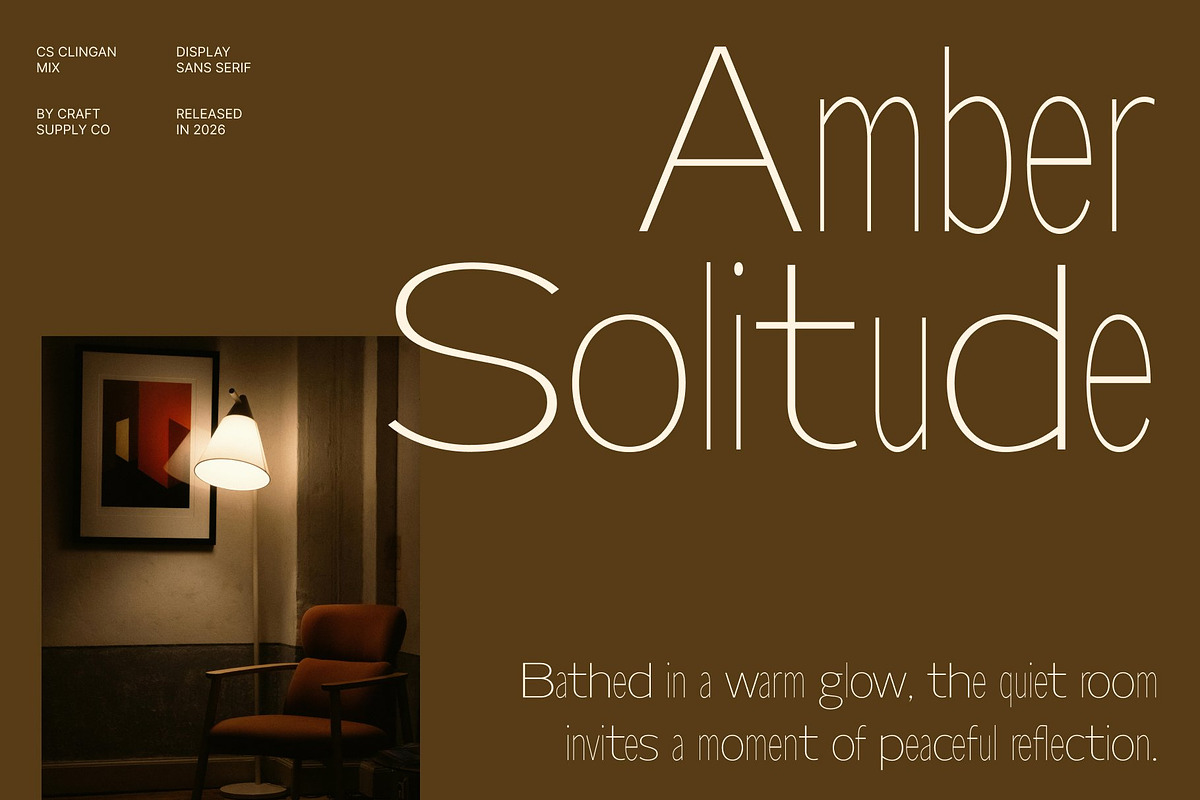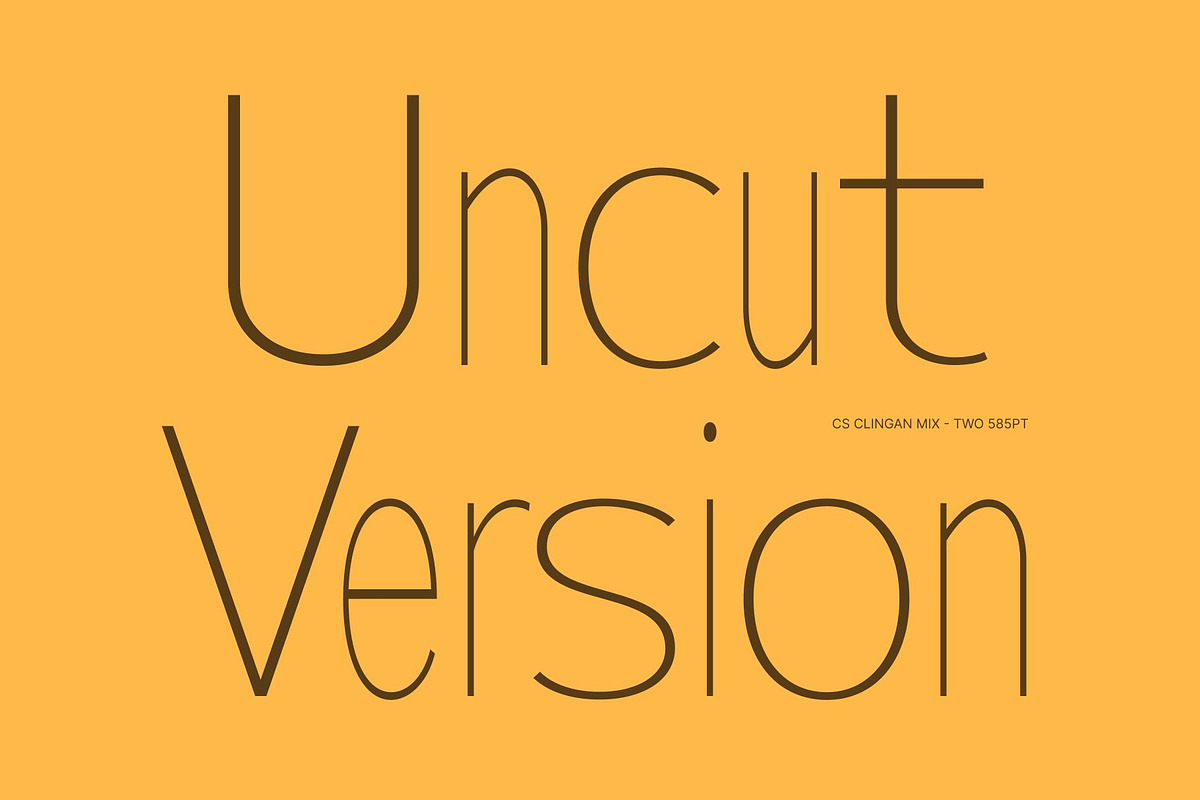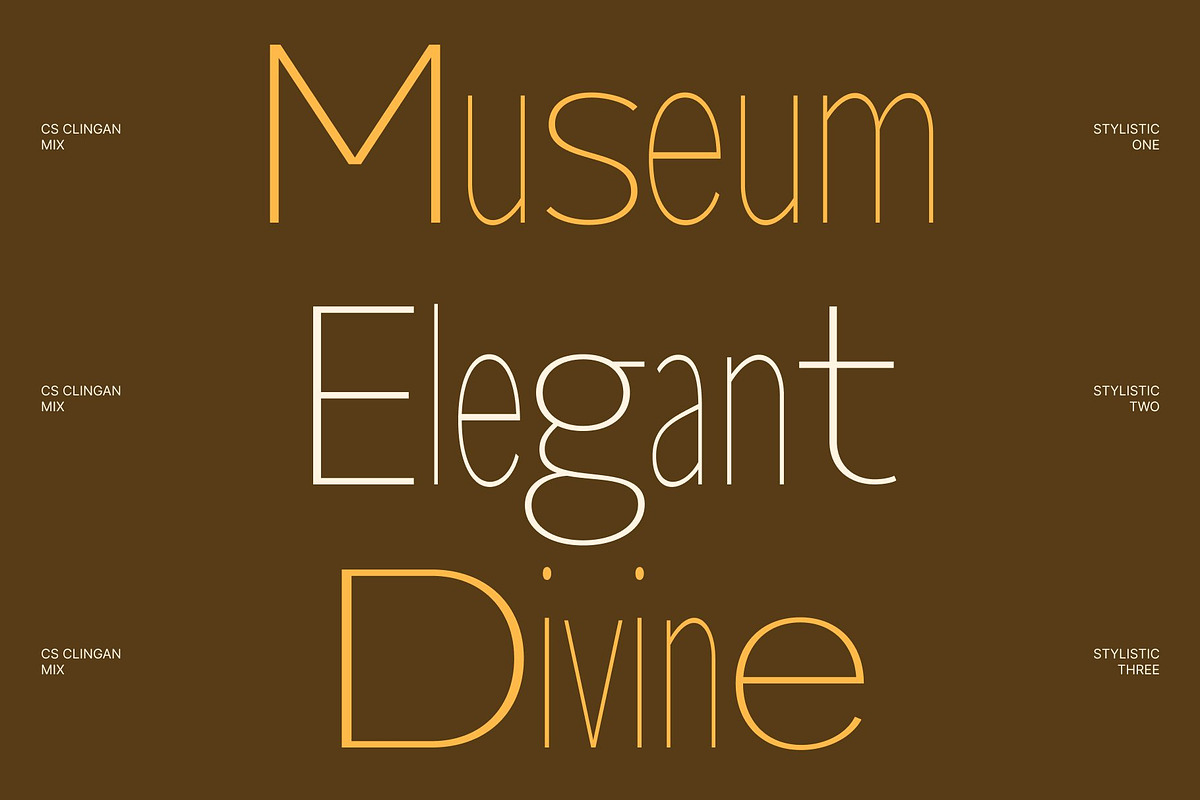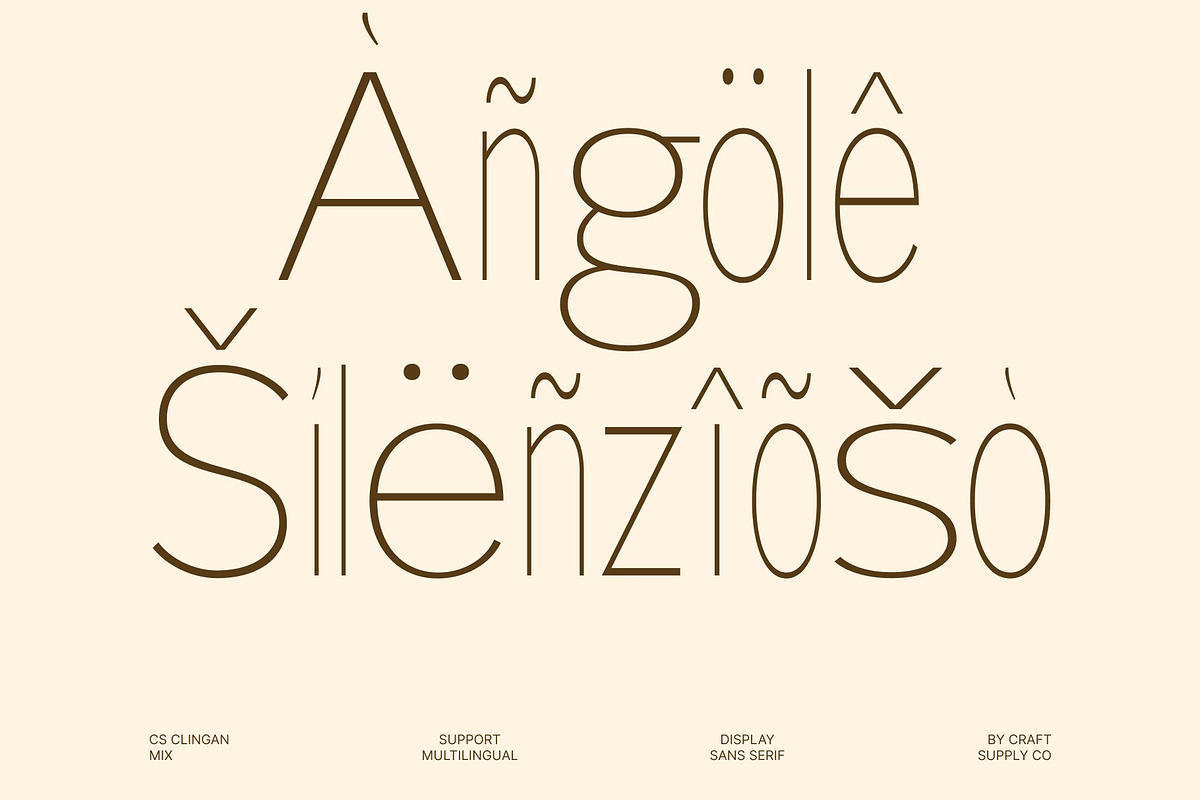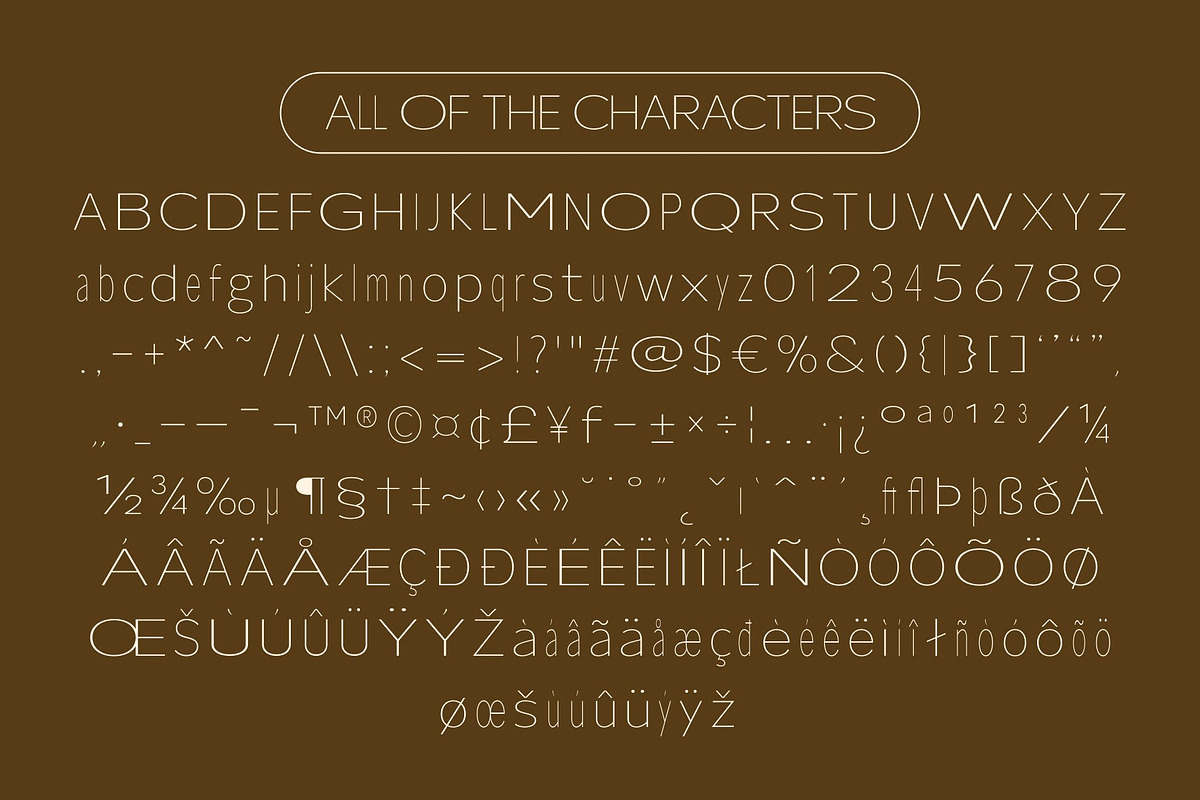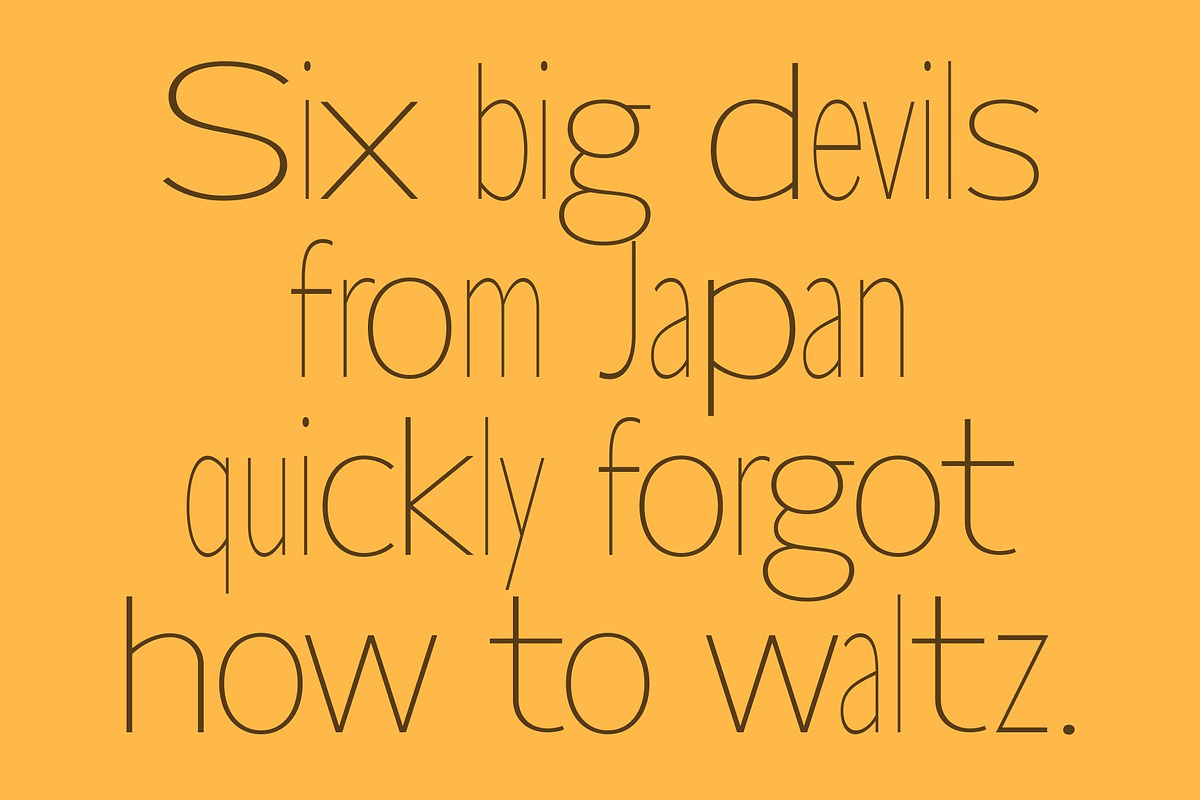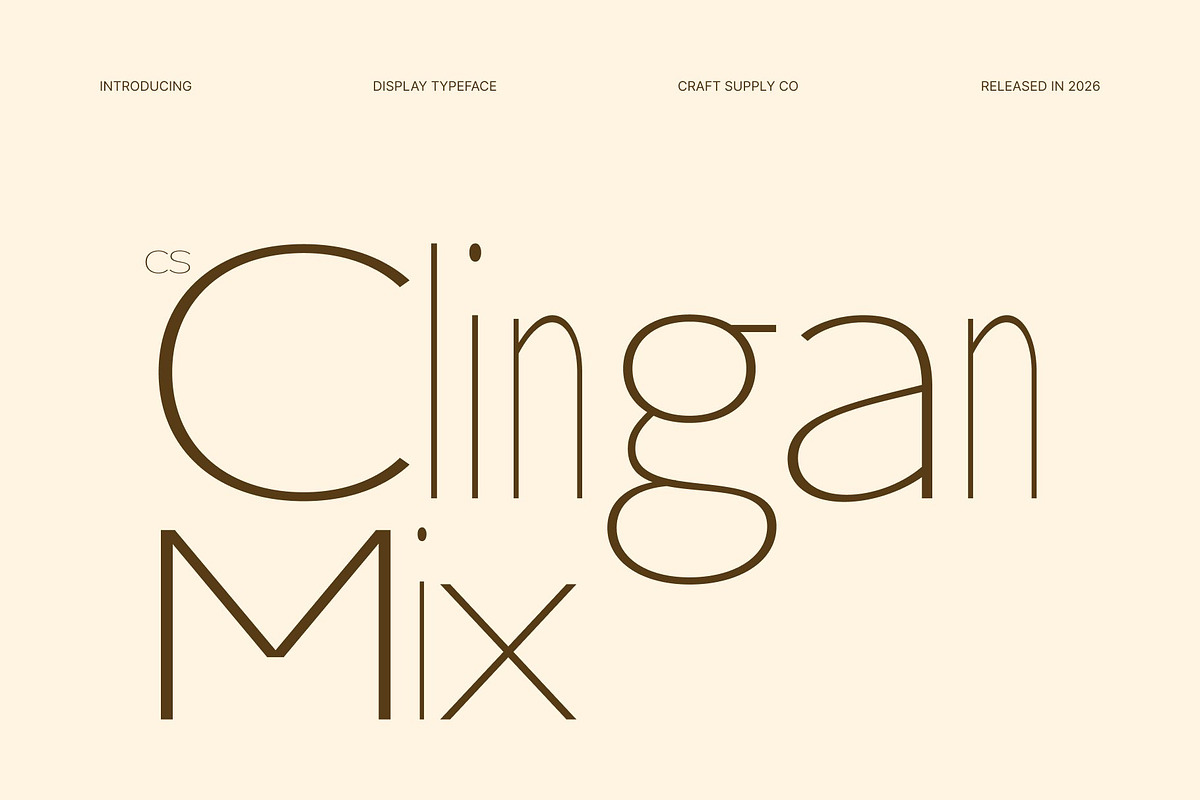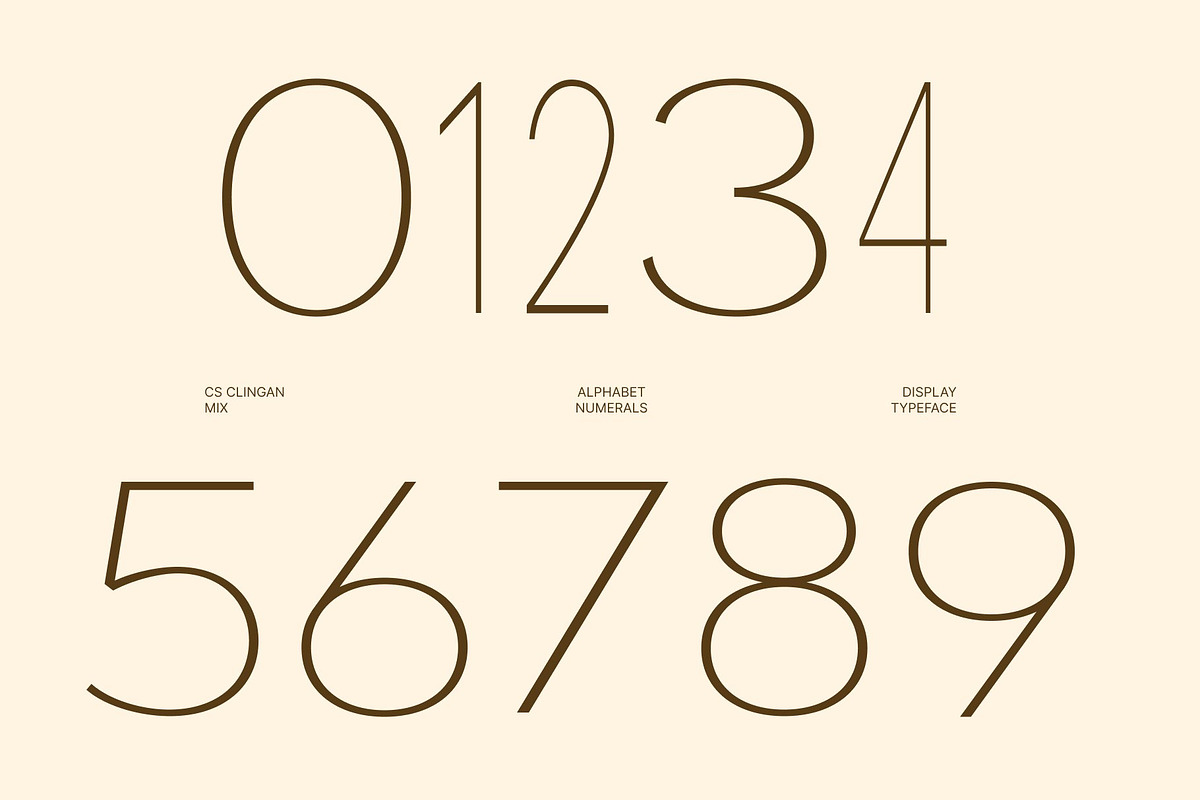
CS Clingan Mix
CS Clingan Mix – Contemporary Sans Serif Font: Elegant Minimalism with Refined Modern Character
Thin Sans Serif with Mixed Style Expression This is a contemporary sans serif font designed to express sophistication through simplicity. Featuring thin strokes, clean geometry, and a refined structure, this typeface introduces a distinctive mixed-style concept that adds subtle contrast and visual rhythm to every composition. It transforms minimalist typography into a graceful design element that feels modern, elegant, and effortlessly professional.
A Sophisticated Blend of Thin and Regular Letterforms The defining feature of this font lies in its thoughtful fusion of thin and regular styles. This mixed-weight approach creates a delicate typographic hierarchy that enhances readability while maintaining an airy and refined appearance.
Modern Simplicity with a Luxurious Touch This font embraces negative space and clean construction to create a calm and balanced visual experience. Its slender forms communicate elegance and precision, while its contemporary design introduces a sense of quiet luxury and confidence. The result is a typeface that feels understated yet memorable, making it ideal for projects that require both clarity and style.
Perfect for Branding, Editorials, and Digital Design From modern branding and editorial layouts to UI/UX design and premium packaging, this font adapts beautifully across a wide range of creative applications. Its clean readability ensures excellent performance in both print and digital environments, while its sophisticated personality elevates the overall visual experience.
CS Clingan Mix One
CS Clingan Mix Two
CS Clingan Mix Three